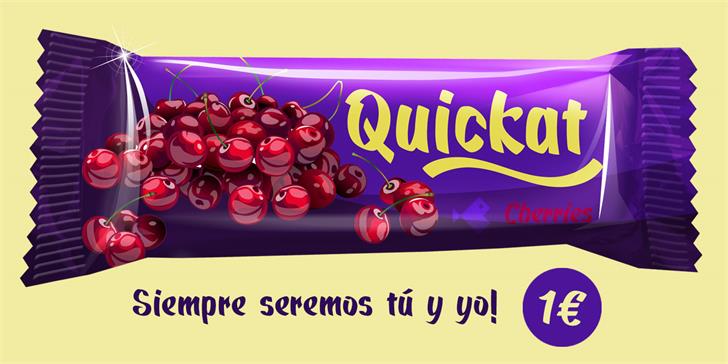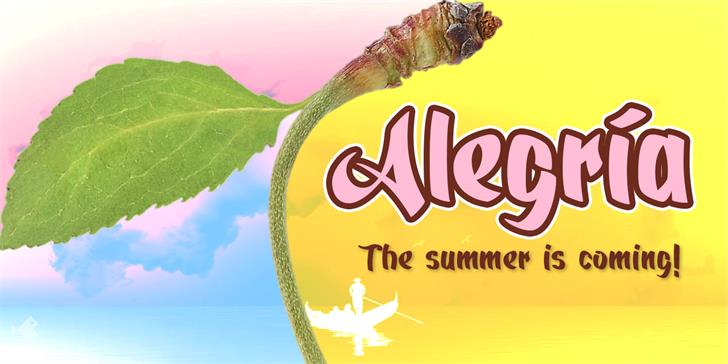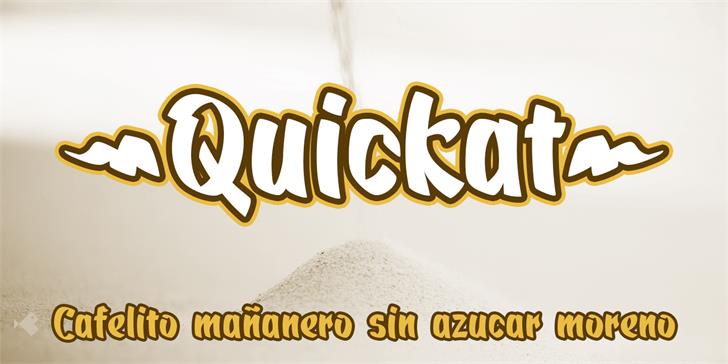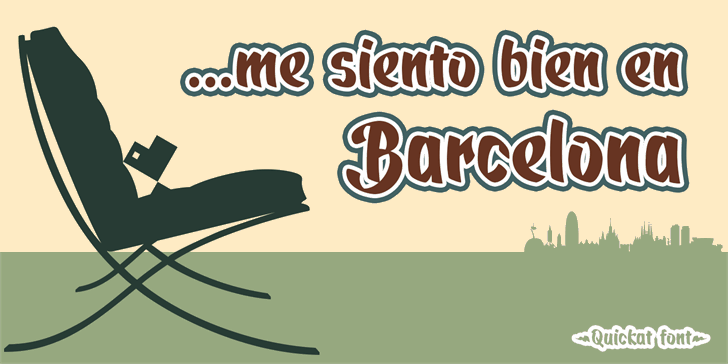
Quickat Script
Quickat Script Font
Quickat is a handwritten font, thick, condensed calligraphic style has several sets of terminal ornaments for decoration of phrases and titles.
This font is drawn by hand with a pen following proportions based on the numbers of Perrin applied completely to the capital letter H and from this letter all the proportions of the rest of the alphabet are calculated according to mathematical formulas that I have been perfecting and putting into practice in my last fonts, is ideal for designing greeting cards or weddings, posters, flashy headlines or small texts.